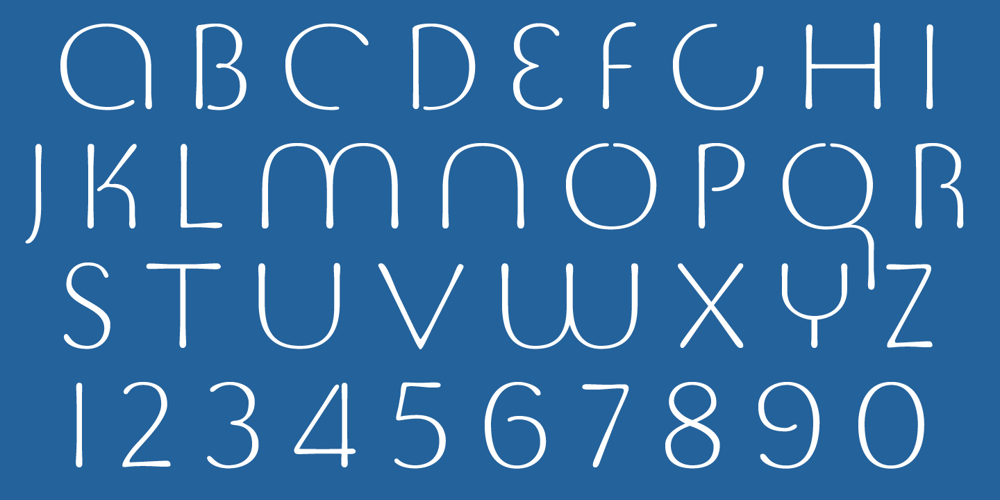
Jensen Arabique
Jensen Arabique font
Jensen Arabique Font Family was designed by Jason Castle and published by CastleType. Jensen Arabique contains 1 styles and family package options. This elegant typeface was suggested to me by type critic Daniel Will-Harris. Jensen Arabique is based on a set of capital letters drawn by Gustav Jensen that included the word “ARABIQUE” at the top of the first page, therefore the name. Daniel Will-Harris has this to say about Jensen Arabique: “I found an example of this unexecuted Gustav Jensen typeface in a type sample book from 1933, and Jason Castle lovingly digitized it with all its rare and unusual curves intact.” Uppercase with alternates, numerals and some punctuation.